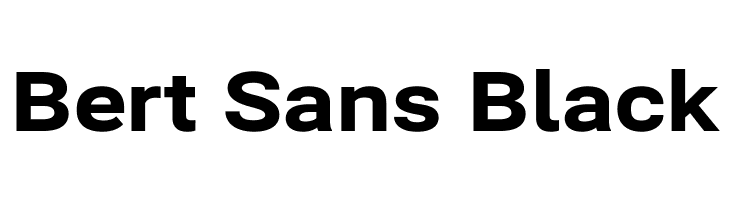
A bold, modern sans-serif typeface with clean lines and strong presence.
A bold, italicized sans-serif font with a modern and dynamic style.
A bold, modern sans-serif font with clean lines and balanced spacing.
A bold, italic sans-serif font with a modern and sleek design.
A bold, modern sans-serif font with clean lines and strong presence.
A bold, italic sans-serif font with a modern and dynamic style.
A modern, extra light sans-serif font with clean lines and uniform spacing.
A sleek, modern sans-serif font with an extra light and italicized style.
A clean, modern sans-serif typeface with balanced proportions and high legibility.
A modern, medium-weight italic sans-serif font with a clean and dynamic style.